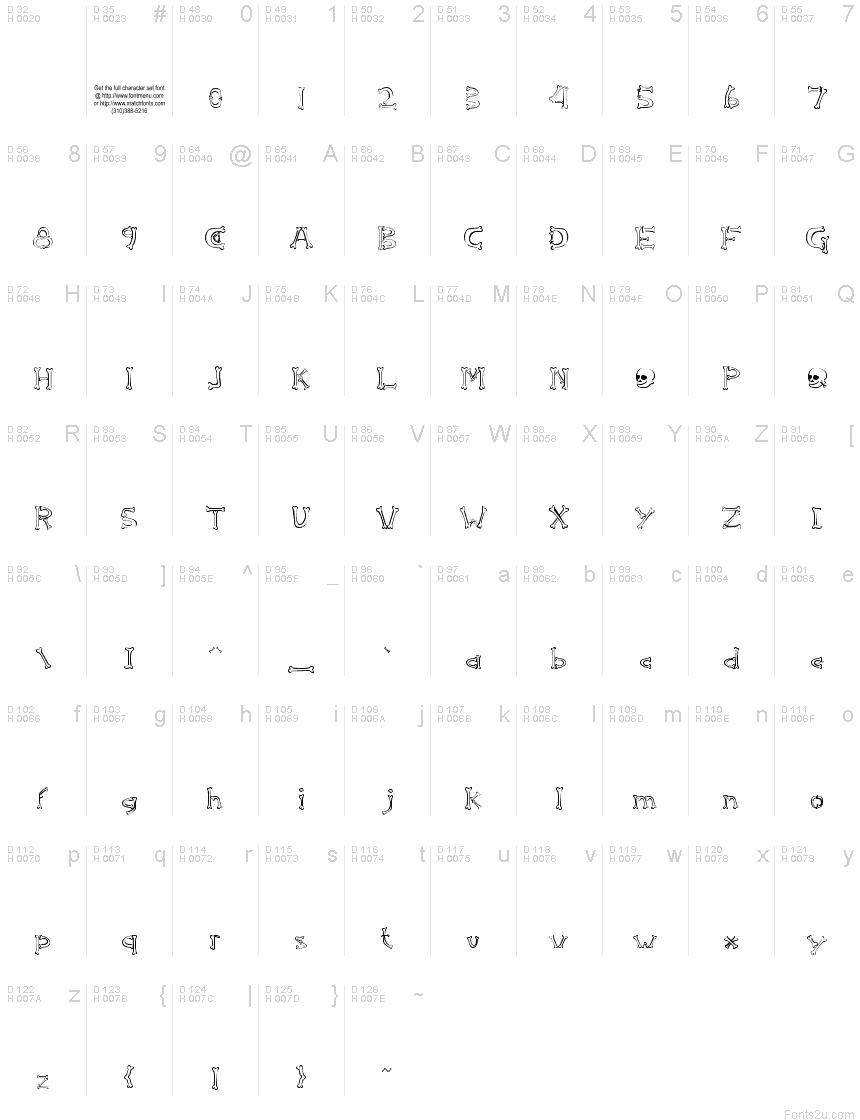
Osselets
Osselets by M. Bujardet for Match Software is a free bone display font that turns the alphabet into cartoon skeletal pieces. The repeated rounded bones, hollow loops, and little knuckle-like ends give the lettering a playful macabre rhythm, with a skull motif that keeps the whole design rooted in Halloween imagery rather than generic decoration.
That makes it a natural pick for haunted house flyers, Halloween party invites, spooky kids' posters, trick-or-treat labels, and themed social graphics. Short titles and decorative callouts get the most from it, especially where those bone-shaped forms can frame the message as part of the artwork.